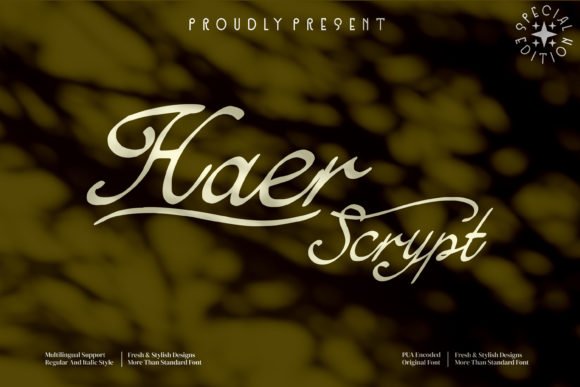
The Perfect Script to Elevate Your Designs
Have you ever stared at a blank canvas, trying to conjure up the perfect font to bring your creative vision to life? The moment of truth – when the right font clicks into place – is pure magic. It’s a rush of excitement and a dash of relief, all mixed into one.
For designers, finding the perfect font can be the difference between a good design and a great one. That’s where Haer Script Font comes in – a ravishing script font that’s been meticulously crafted to elevate any design. With its highly detailed design, Haer Script Font is a valuable addition to any font library, capable of taking your designs to the next level.
Haer Script Font Key Features
- Font Type: Script Font
- Unique Characteristics: Features a elegant, handwritten style with connected strokes and subtle flair, making it ideal for creative and artistic applications.
Haer Script Font Review
Overall, I’m quite impressed with the Haer Script Font. ✨ It has a beautiful, elegant feel that’s perfect for projects that require a touch of sophistication. The font is highly customizable, allowing you to adjust the spacing, line height, and even the individual letter spacing to get the look just right.
The font’s script style is well-executed, with each letter flowing smoothly into the next. It’s a great choice for titles, headings, and other text that needs to stand out. I’ve used it in a few projects, and the results have always been excellent.
- Beautiful, elegant feel
- Well-executed script style
- Perfect for titles and headings
- Not ideal for body text (can be difficult to read at smaller sizes)
- May require adjustments to line height and spacing for optimal legibility
Overall, I’d definitely recommend the Haer Script Font for projects that require a touch of elegance and sophistication. Just be mindful of its limitations, and you’ll be able to get the most out of this beautiful font.
Tips for Getting the Most Out of Haer Script Font
For the best results, use Haer Script Font in combination with other elegant fonts to create a sophisticated look.
Use Haer Script Font for headings and titles to add a touch of luxury and elegance.
Experiment with different font sizes and colors to create visual interest and emphasis.
Haer Script Font is ideal for:
Book covers and interior design
Wedding and event planning
Alternatives to Haer Script Font for Designers
Great Vibes is a modern, elegant script font perfect for creating a sophisticated and luxurious feel in designs. It is ideal for use in branding, advertising, and editorial content.
Comparison to Haer Script Font: Great Vibes has a more refined and polished look compared to Haer Script Font, making it suitable for high-end designs. It also has a wider range of ligatures and swashes, offering more versatility in design applications.
Alex Brush is a beautiful, handwritten script font that is perfect for creating a personal and emotional connection with the audience. It is ideal for use in creative projects, such as book covers, invitations, and social media graphics.
Comparison to Haer Script Font: Alex Brush has a more organic and hand-drawn feel compared to Haer Script Font, making it suitable for designs that require a more personal touch. It also has a more subtle and elegant look, which is perfect for creating a sophisticated and understated design.
Carolyna Pro is a luxurious, modern script font that is perfect for creating a high-end and sophisticated feel in designs. It is ideal for use in branding, advertising, and editorial content.
Comparison to Haer Script Font: Carolyna Pro has a more refined and polished look compared to Haer Script Font, making it suitable for high-end designs. It also has a wider range of ligatures and swashes, offering more versatility in design applications.
Dancing Script is a fun, elegant script font that is perfect for creating a playful and creative feel in designs. It is ideal for use
Project Ideas Using Haer Script Font
Design elegant and whimsical wedding invitations using the Haer Script Font to add a touch of sophistication and romance. This font’s flowing lines and elegant curves will perfectly capture the essence of your special day.